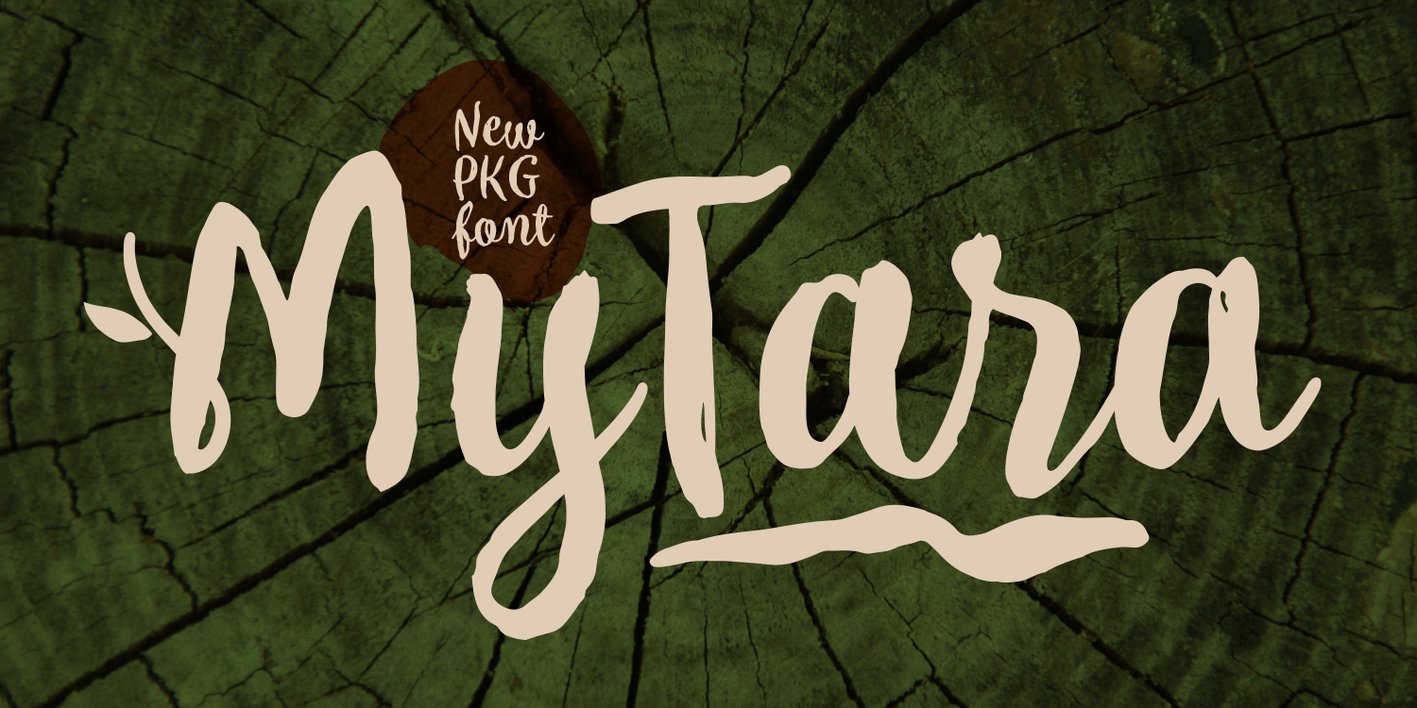
My Tara Font
The reason My Tara Font is genuinely exciting is its distinct, sketched woody texture and intentionally rough aesthetic, which gives it an authentic, hand-crafted look unlike polished digital scripts. It achieves a casual yet captivating visual appeal, perfectly capturing the fluidity of natural handwriting. To maintain flow and realism, the font incorporates a generous amount of Standard Ligatures and Stylistic Alternates, specifically designed to avoid repetitive letter shapes. The full collection often includes bonus dingbats with drawings of flora and fauna.
The My Tara Font family typically consists of three components: the primary My Tara Regular (Script) style, along with supporting My Tara Ornaments and My Tara Dingbats sets. This comprehensive family provides the full toolkit necessary for cohesive, rustic branding. For a truly natural and authentically beautiful typeface, secure your My Tara Font Free Download today.